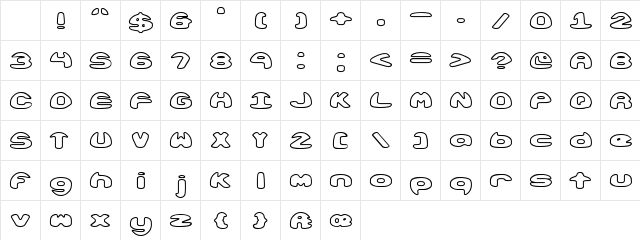
Complete Obloquy Outline BRK Regular glyph index. Displaying only characters natively supported by Obloquy Outline BRK Regular font.
Obloquy Outline BRK is built around its visual character rather than neutral utility - its distinctive forms are designed to make an impression at display sizes.
Font Pairing: Pair with a clean neutral sans-serif for body copy to let Obloquy Outline BRK's character lead without overwhelming the composition.
Pro Tip: Use Obloquy Outline BRK exclusively at display sizes - it was designed to be seen, not read at length. Let a neutral companion handle body copy.